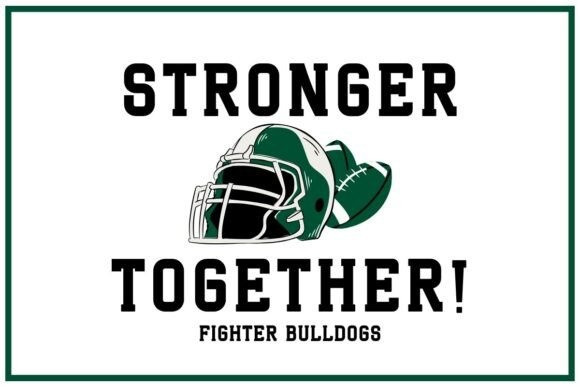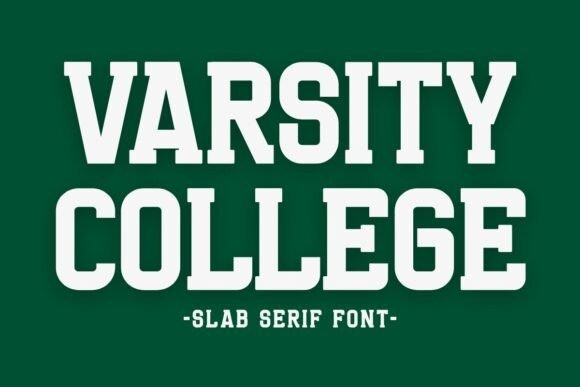
Varsity College Font
Varsity College Font a bold and strong slab serif font, is a delightful blend of whimsy and clarity. Its playful curves and rounded edges bring a sense of warmth to any design. Perfect for children’s books, invitations,headline and branding, Varsity College radiates a sweet charm that captures attention with its inviting personality.